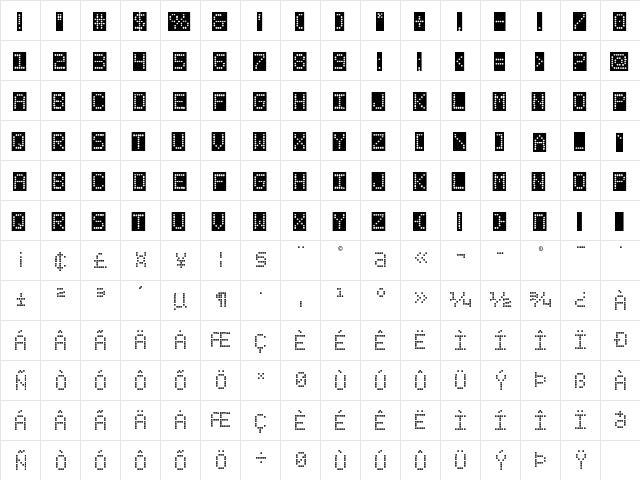
Fanfare Ticker Background Regular
Design Context for Fanfare Ticker Background Typeface
Fanfare Ticker Background softens its letterforms with rounded terminals, giving it an approachable, friendly quality that works well in consumer-facing and digital contexts.
Well-suited to UI design, mobile interfaces, and any brand that wants approachability without sacrificing clarity.
Font Pairing: Pairs well with a rounded or humanist sans for body copy, maintaining the friendly tone without relying on Fanfare Ticker Background to carry extended reading.
Pro Tip: Use Fanfare Ticker Background for UI elements, app interfaces, and anywhere a friendly, approachable tone needs to be maintained without sacrificing clarity.